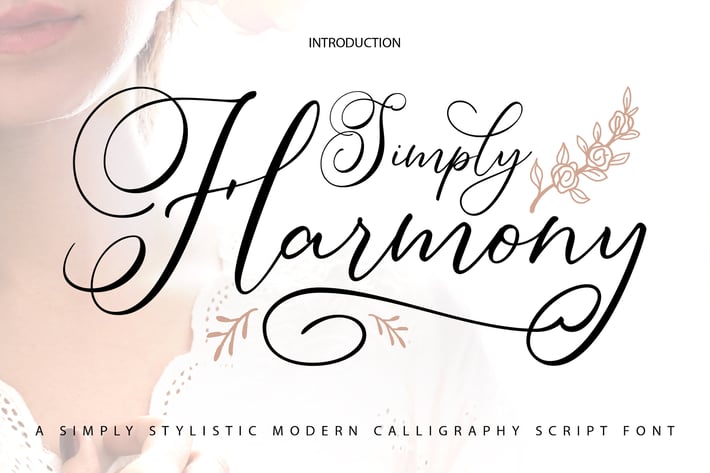
Simply Harmony | Stylistic Modern Calligraphy Font
Simply Harmony | Stylistic Modern Calligraphy Font with a calligraphy style, So beautiful on invitation like greeting cards, branding materials, business cards, quotes, posters, and more!